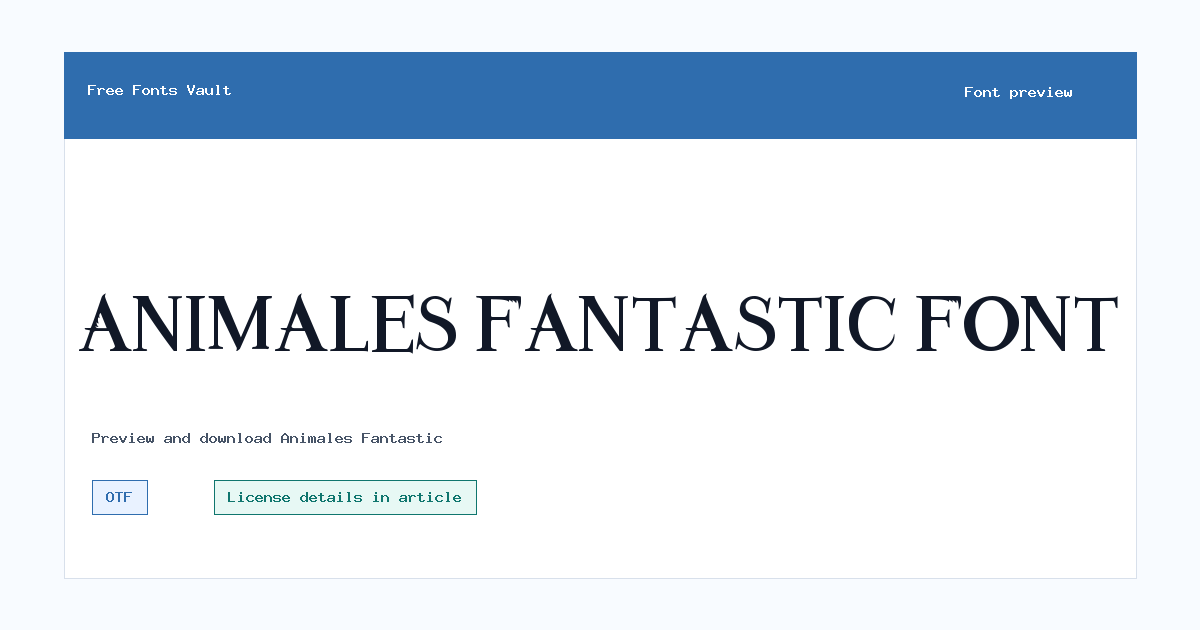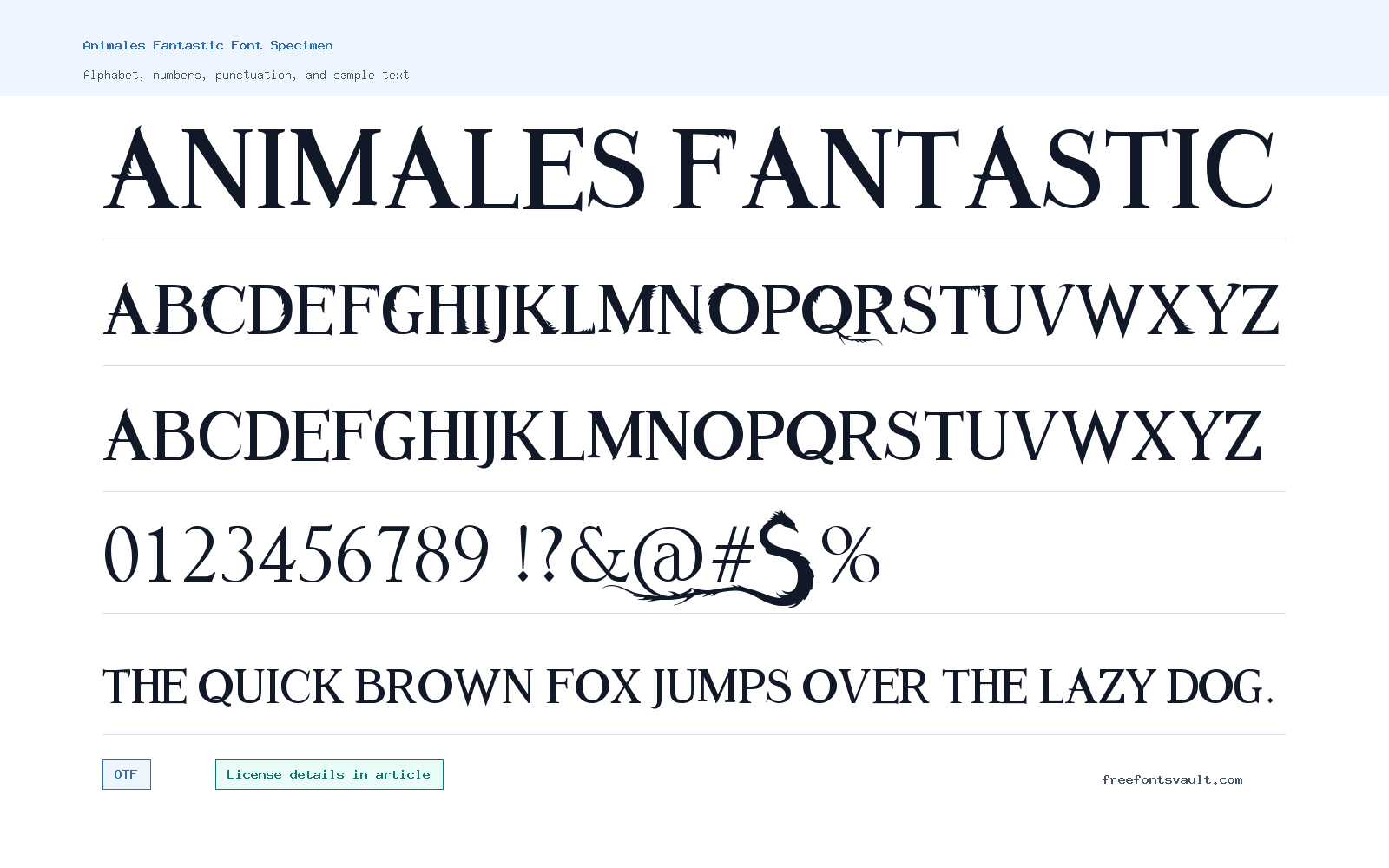
Animales Fantastic
Animales Fantastic font.
Animales Fantastic is a decorative OTF display font made for short text that should feel lively, unusual, or playful. Use it where the words are part of the visual style: posters, cards, labels, thumbnails, craft graphics, and decorative headings.
About Animales Fantastic Font
Animales Fantastic is listed as a regular OpenType font with normal style and 400 weight. It is not presented as a large family, so the safest way to use it is as a focused display face. That means it can add personality to a title or short phrase, while a simpler companion font handles paragraphs, dates, notes, prices, and small supporting text.
Decorative fonts need more preview testing than neutral text fonts. Try the real words from your project, then check numbers, punctuation, uppercase, lowercase, and any accented letters you may need. If a word becomes crowded or hard to read, increase the size, add spacing, shorten the phrase, or reserve the font for the largest part of the design.
This font is a good candidate for visual experiments where mood matters more than long-form readability. It can help with party materials, child-friendly graphics, sticker concepts, playful titles, packaging sketches, and social posts. Keep the layout simple around it so the font can stand out without fighting too many other decorative elements.
- Decorative display direction for short, expressive text
- Works best at larger sizes where details remain visible
- Designed for visual emphasis rather than dense paragraph reading
- Posters, invitations, greeting cards, and event graphics
- Short headlines, names, labels, and sticker-style text
- Social media thumbnails and playful image captions
- Craft projects, packaging mockups, and decorative typography tests
- Accent lettering paired with a plain body font
Use Animales Fantastic for short text first. Type your real phrase in the preview, then test the final size and background color. If readability drops, reduce the amount of text, add more spacing, or pair it with a clean sans serif for anything that must be read quickly.
Is Animales Fantastic good for body text?
It is better for short display text. Use a simpler companion font for paragraphs, captions, and small information.
What projects suit Animales Fantastic?
It suits posters, cards, labels, thumbnails, stickers, craft graphics, and other short decorative text treatments.